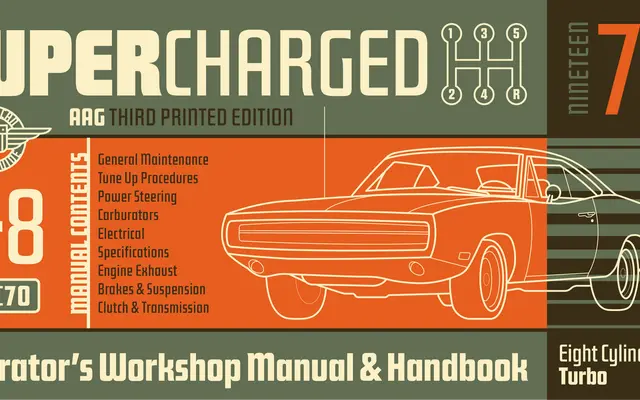
Bearklaw
Fort Foundry · Brian Brubaker, Mattox Shuler
A geometric display family by Brian Brubaker and Mattox Shuler, fusing pre-digital cuts of Futura Display into a modern ten-style family with period alternates and a wider small-size cut.
Taking its cues from a mail order advertisement set in a vintage cut of Futura Display, Bearklaw is not a straight revival but a creative synthesis of pre-digital geometric systems. The family runs from Medium to Black with matching italics, and adds two bonus styles: Cub, a wider cut suited to smaller sizes, and Printed, a textured variant. Stylistic alternates and historical forms give designers room to dial in character without leaving the family.
Inspired by Futura Display and pre-digital geometric cuts, Bearklaw is a display-oriented geometric sans built for large sizes, with a wider 'Cub' cut and a distressed 'Printed' variant extending its expressive range.